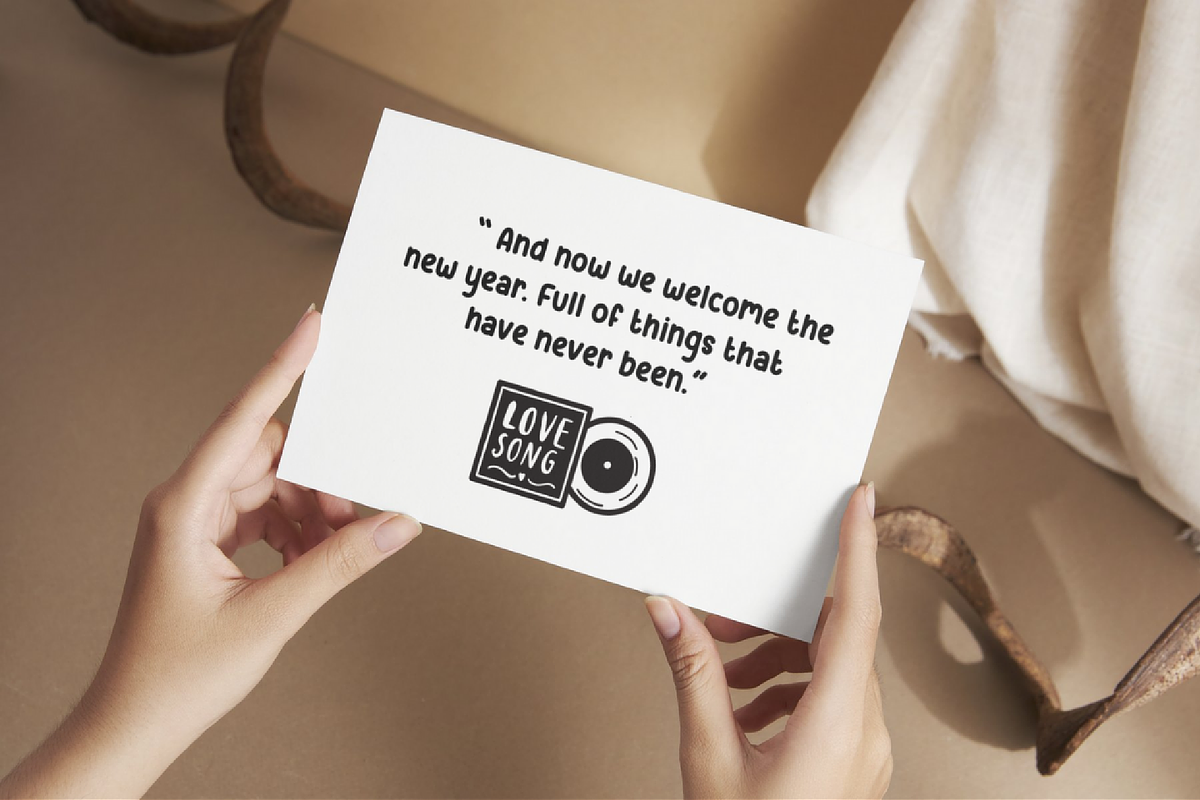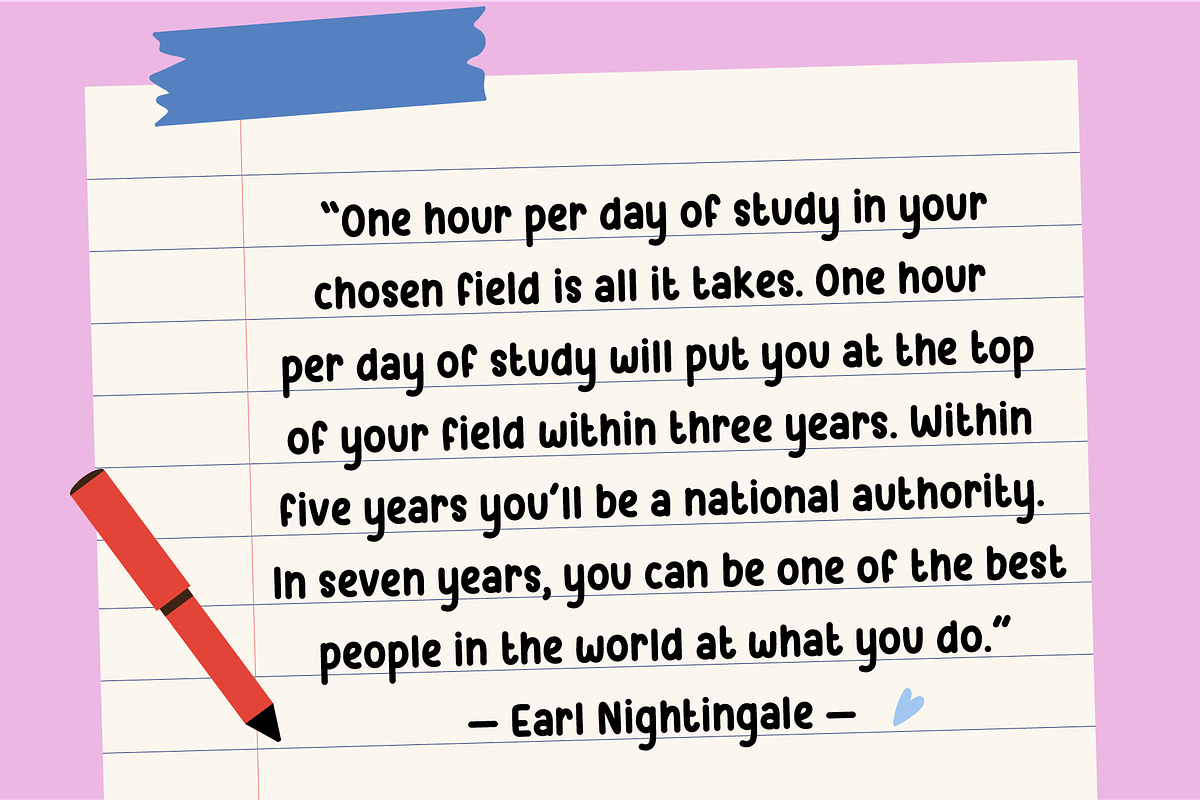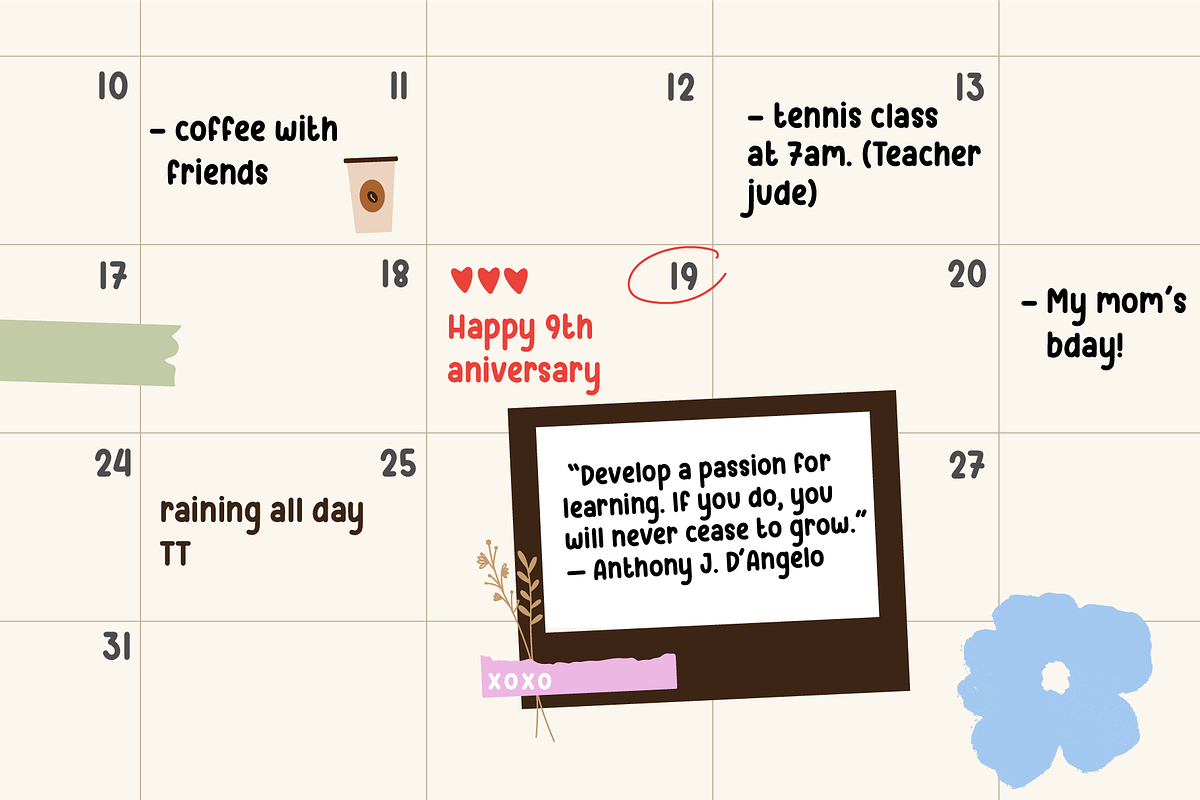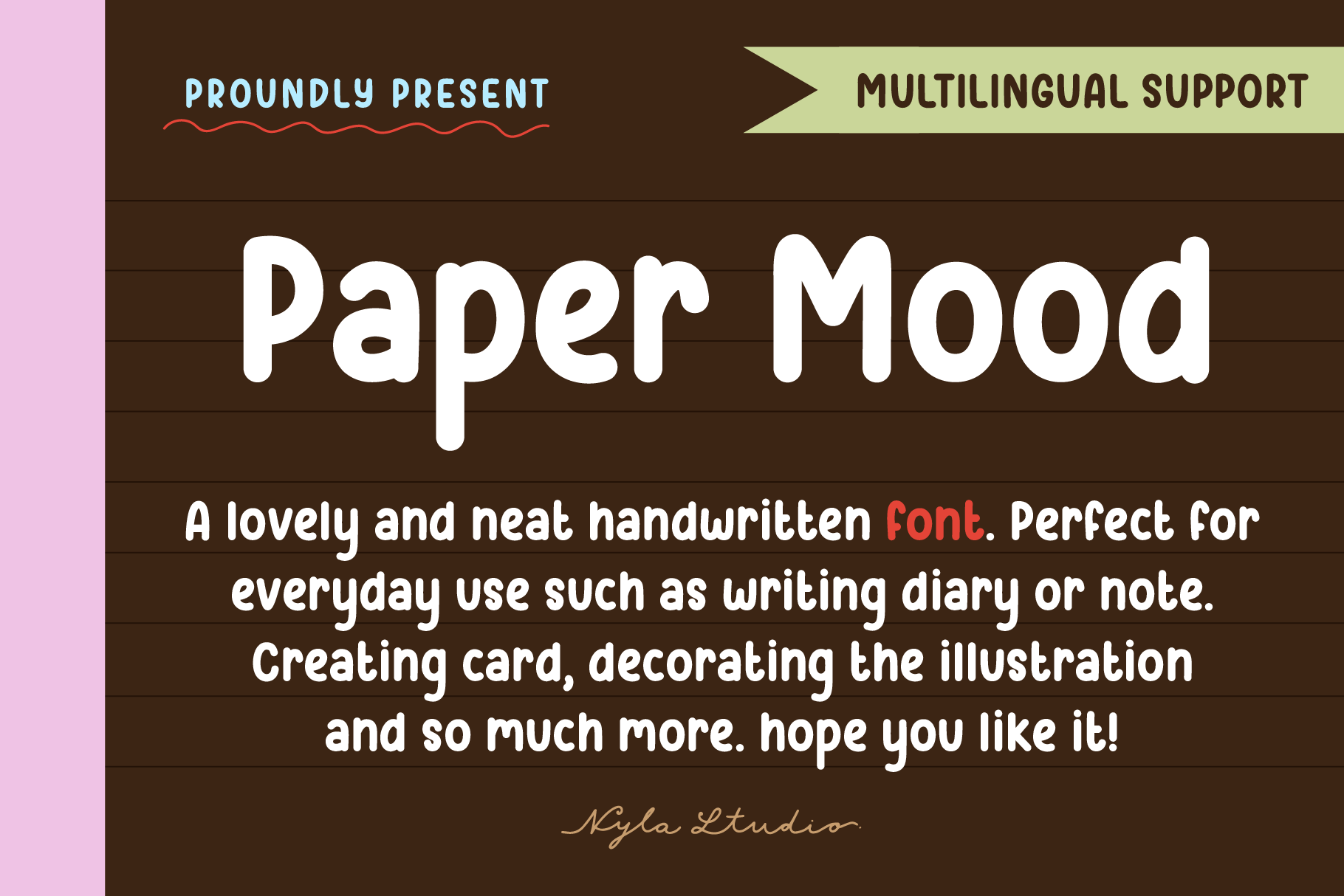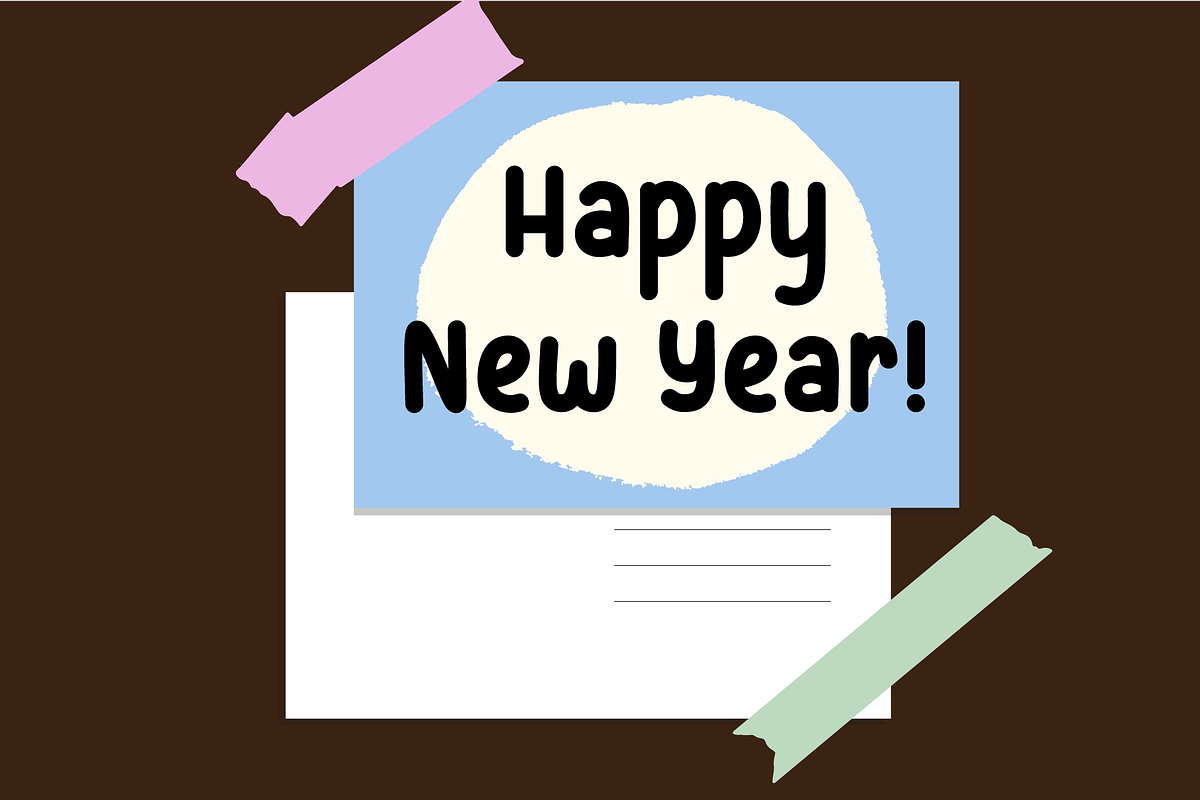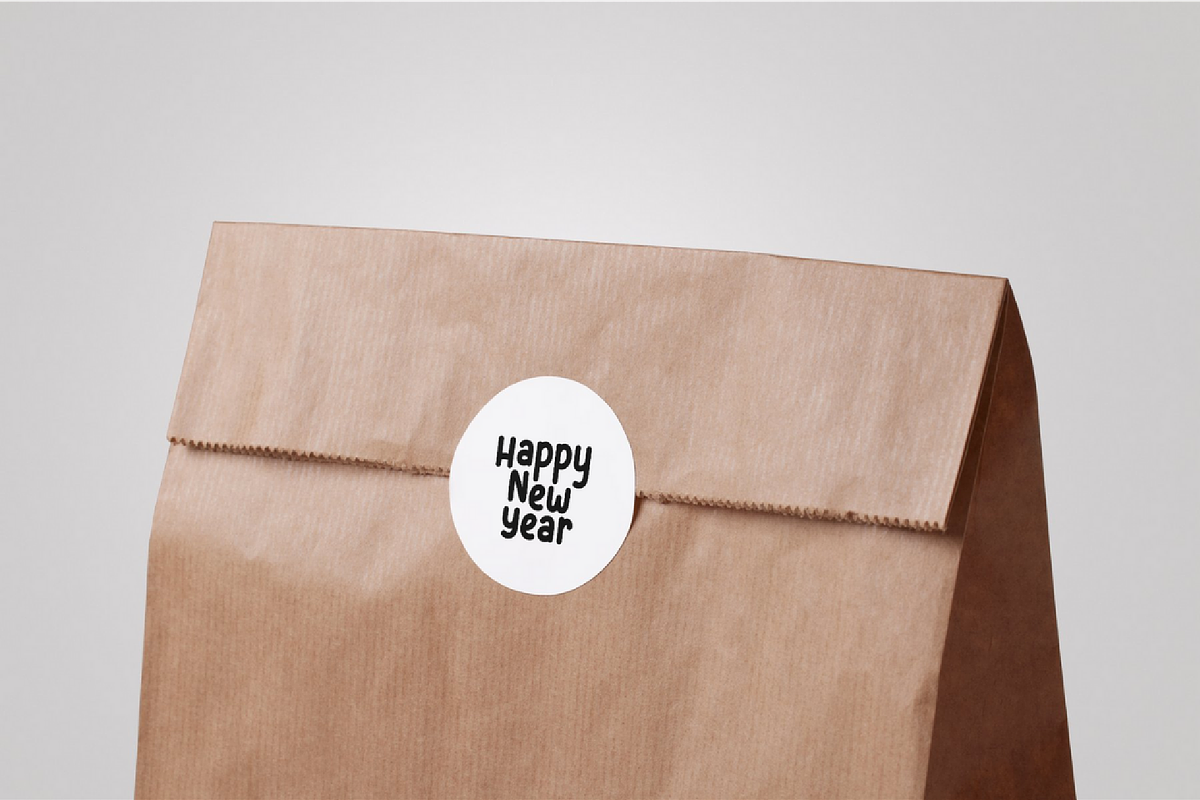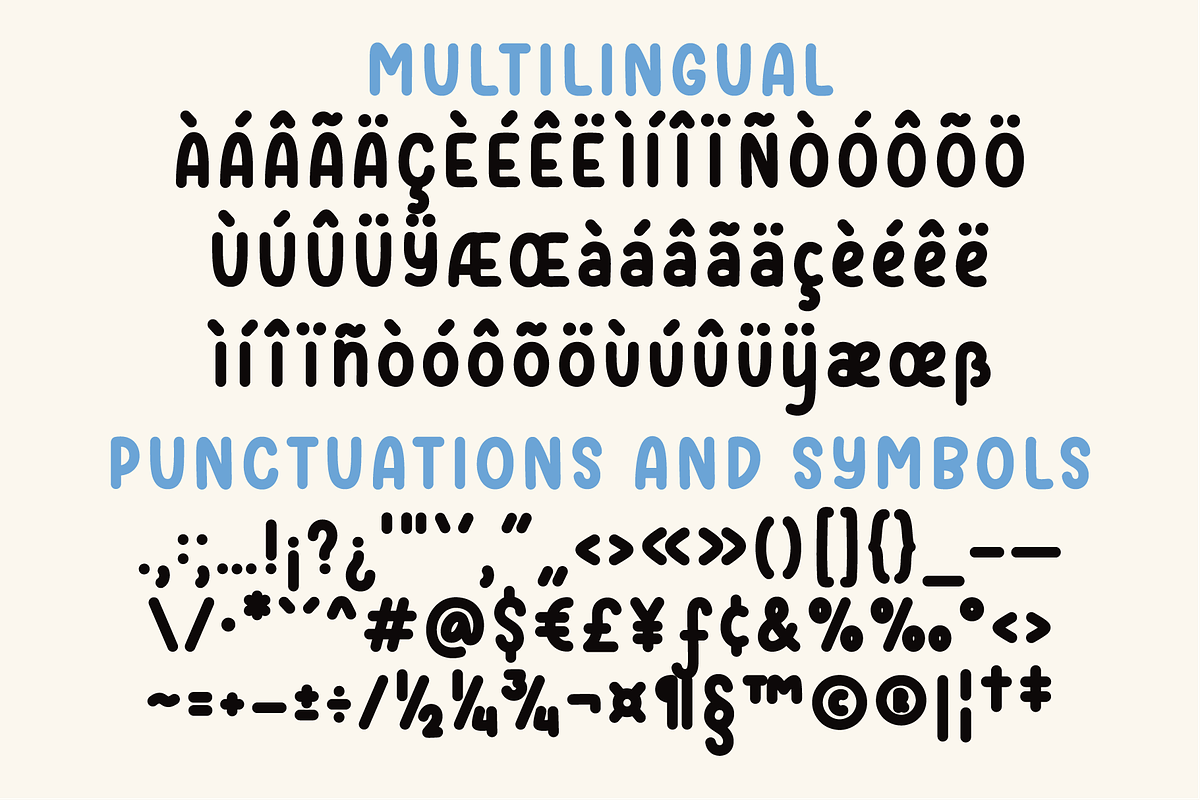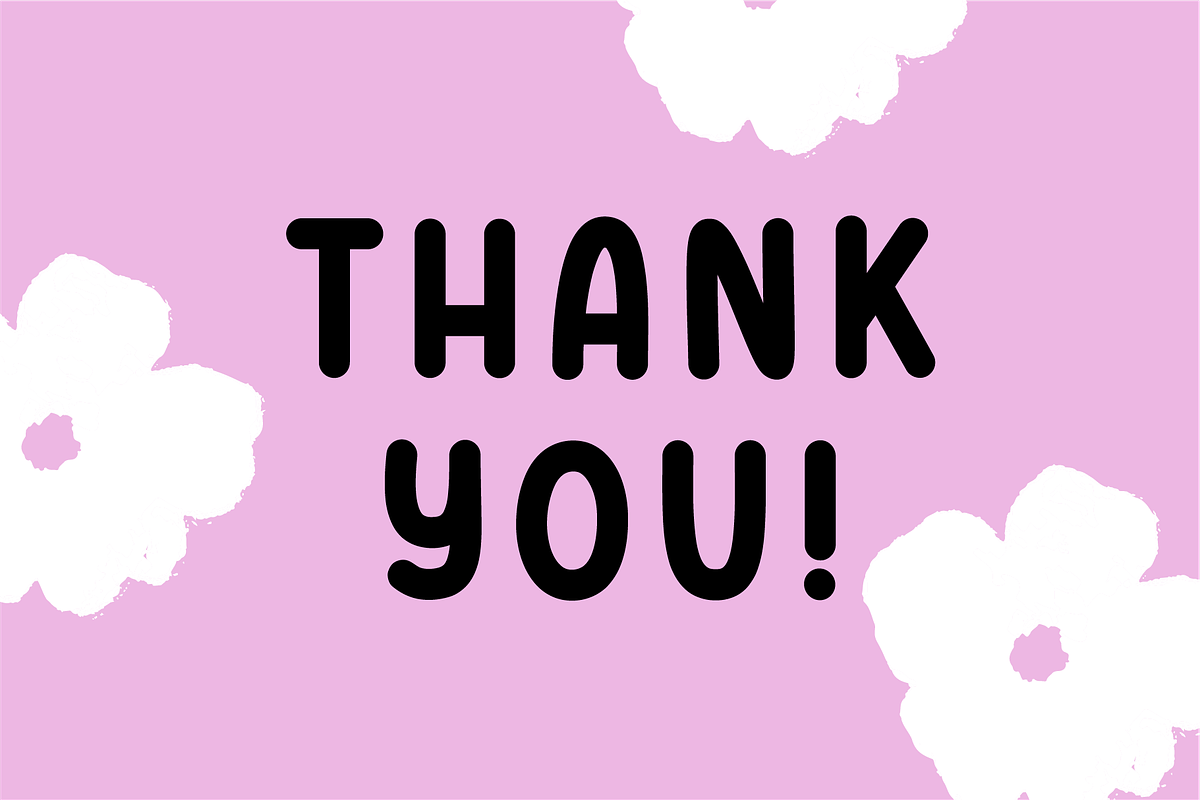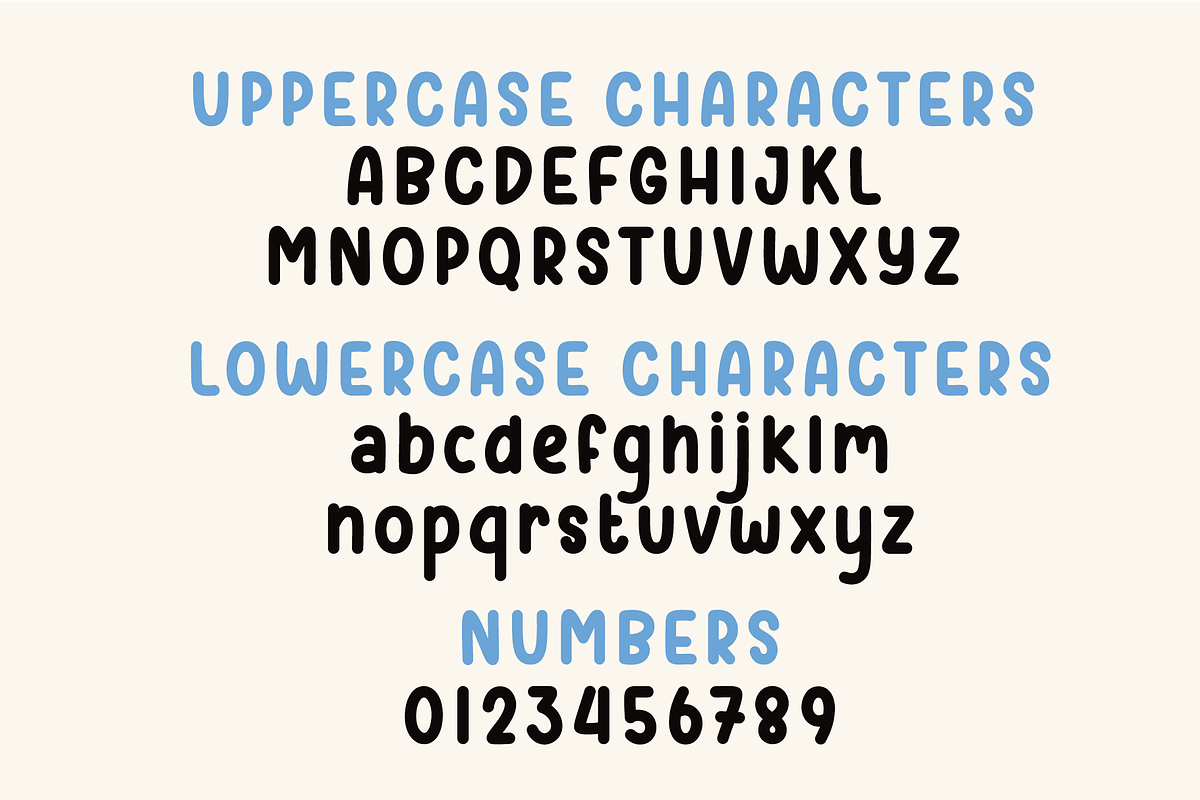
Paper mood font
PAPER MOOD is a cute handwritten font. Perfect for everyday note taking such as writing diary or note, creating posters, logos, greeting cards, packaging and so much more!
Note taking Font Features:
- Extended punctuation.
- Multilingual Characters support.
- Full set of alphabet both uppercase and lowercase.